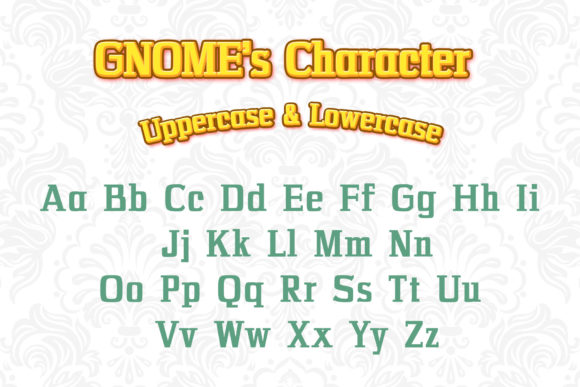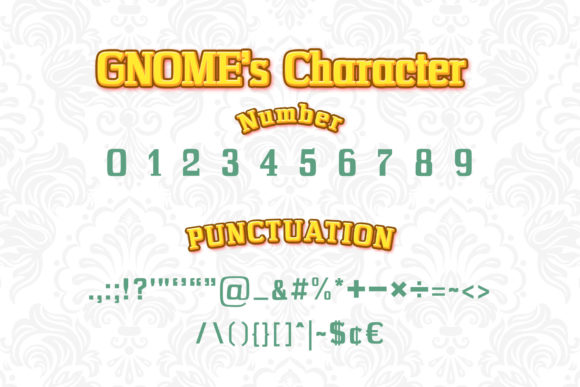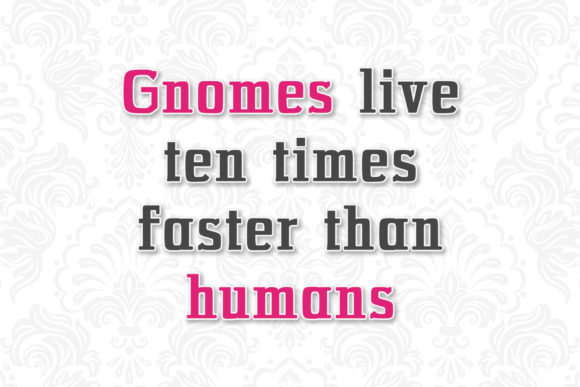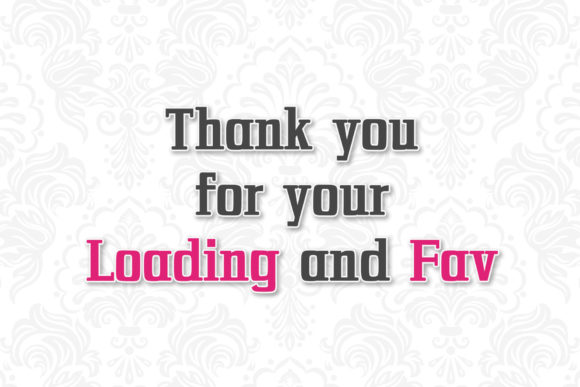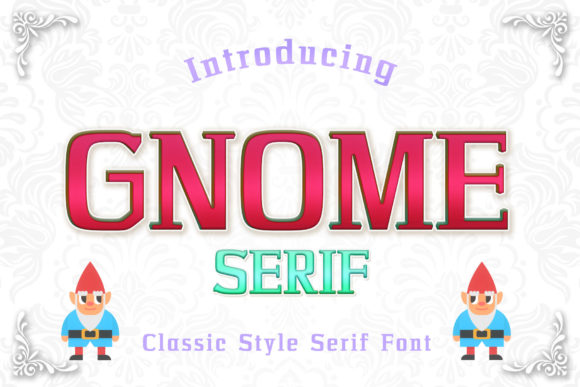
Gnome Font: Elevate Your Designs with a Bold and Authentic Serif
Are you tired of using the same old fonts in your designs? Look no further than the Gnome Font, a bold and authentic serif font that’s sure to make your creative ideas stand out. In this article, we’ll dive into the world of Gnome Font, exploring its unique features, benefits, and uses. Whether you’re a designer, crafter, or simply someone looking to add a touch of personality to your projects, Gnome Font is a must-try.
What is Gnome Font?
Gnome Font is a serif font that’s characterized by its bold and authentic style. Its unique design makes it perfect for adding a touch of sophistication and elegance to any project. The font features classic serif elements, with subtle flourishes that give it a distinctive look. Whether you’re working on a logo, brochure, or website, Gnome Font is sure to make a lasting impression.
Key Features of Gnome Font
So, what sets Gnome Font apart from other serif fonts? Here are some of its key features:
- Bold and Authentic: Gnome Font is a bold and authentic serif font that’s designed to make a statement. Its unique style is sure to grab attention and add a touch of personality to your designs.
- Classic Serif Elements: The font features classic serif elements, with subtle flourishes that give it a distinctive look.
- Highly Versatile: Gnome Font is highly versatile, making it perfect for a wide range of projects, from logos and brochures to websites and more.
- Easily Readable: Despite its bold style, Gnome Font is easily readable, making it perfect for body text and headings.
Benefits of Using Gnome Font
So, why should you choose Gnome Font for your next project? Here are some of the benefits of using this amazing font:
- Adds Personality to Your Designs: Gnome Font adds a touch of personality to your designs, making them stand out from the crowd.
- Enhances Readability: The font’s classic serif elements and bold style make it easily readable, even at small sizes.
- Perfect for Branding: Gnome Font is perfect for branding projects, such as logos and business cards, where you want to make a lasting impression.
Uses of Gnome Font
So, what can you use Gnome Font for? The possibilities are endless! Here are some ideas to get you started:
- Logos and Branding: Use Gnome Font to create a bold and memorable logo that stands out from the crowd.
- Brochures and Flyers: Add a touch of sophistication to your brochures and flyers with Gnome Font.
- Websites and Blogs: Use Gnome Font to add a touch of personality to your website or blog.
- Social Media Graphics: Create eye-catching social media graphics with Gnome Font.
Tips for Using Gnome Font
Here are some tips for getting the most out of Gnome Font:
- Use it Boldly: Don’t be afraid to use Gnome Font in bold and large sizes to make a statement.
- Pair it with Other Fonts: Experiment with pairing Gnome Font with other fonts to create a unique and eye-catching look.
- Use it for Headings: Use Gnome Font for headings and titles to add a touch of personality to your designs.